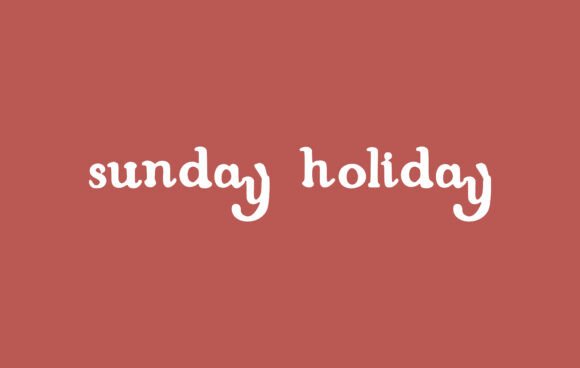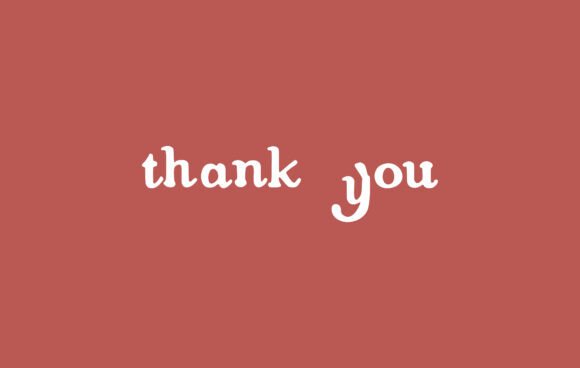
The Cheesecake Font: A Sweet Addition to Your Design Toolbox
I’ll never forget the time I was working on a wedding invitation project, and my client asked for a font that was “romantic, elegant, and playful.” I scoured the internet, tried out dozens of fonts, but nothing seemed quite right. That was until I stumbled upon the Cheesecake font. It was love at first sight! 💕
With its authentic handwritten style and romantic touch, Cheesecake font quickly became my go-to for a wide range of design projects. In this article, I’ll share my honest review, a practical guide on how to use it, and some helpful tips and tricks.
- ✅ Legibility: Cheesecake font is incredibly easy to read, making it perfect for both title and body text.
- ✅ Versatility: Its romantic and playful vibe makes it suitable for a wide range of design projects, from magazine headlines to wedding invitations.
- ✅ Authentic Handwritten Style: The font’s unique, handwritten feel adds a personal touch to any design.
- ⚠️ Limited use in very formal designs: While Cheesecake font is versatile, its playful nature might not be suitable for very formal or corporate designs.
- ⚠️ Requires attention to spacing: As with any handwritten font, some letters may require manual kerning for optimal spacing.
A Practical Guide: Using Cheesecake Font in Your Designs
The Story Behind Cheesecake Font
Cheesecake font was designed by a talented typographer who wanted to create a font that captured the essence of handwritten elegance. Inspired by classic romantic scripts, Cheesecake font combines traditional techniques with modern sensibilities.
Q: Is Cheesecake font suitable for body text?
A: While Cheesecake font is legible, it’s best suited for shorter paragraphs or titles. For longer body text, you may want to consider a more traditional serif or sans-serif font.